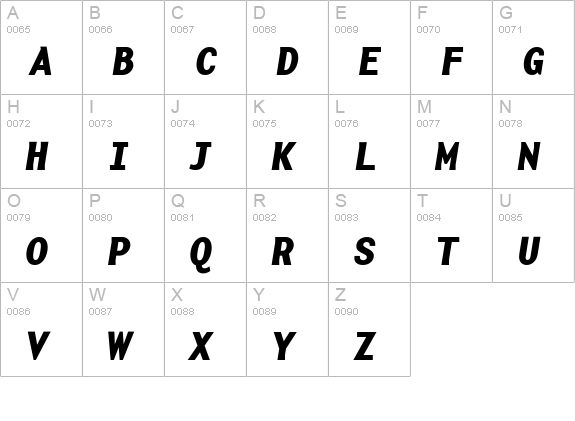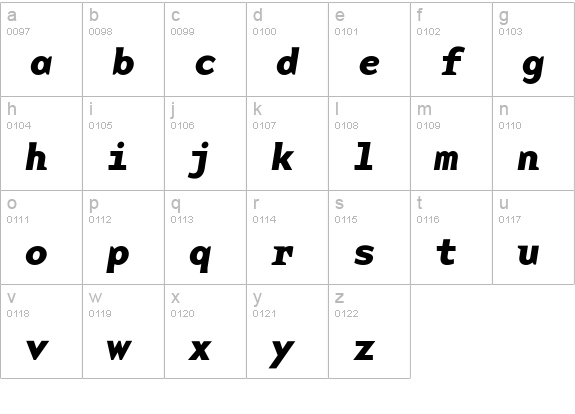
BaseMonoWide-Bold Italic is a strong, high-contrast, italic variant in the BaseMonoWide typeface family \xE2\x80\x94 well suited to headlines, attention-grabbing titles, and strong calls-to-action.
BaseMonoWide-Bold Italic is a striking and modern monospaced font that combines boldness with a touch of elegance. Its sleek design and strong presence make it perfect for conveying a sense of power and sophistication in any project. The bold italic style adds a dynamic and eye-catching element to your text, making it stand out from the crowd. This versatile typeface is ideal for a wide range of applications, from editorial design to branding and packaging. Its mono-width characters ensure consistency and readability, making it a reliable choice for both print and digital projects. Whether you're designing a poster, creating a logo, or coding a website, BaseMonoWide-Bold Italic will bring a bold and distinctive flair to your work. Best of all, BaseMonoWide-Bold Italic is available for free download at FontsMarket.com. This means you can easily access this high-quality font and use it in your projects without any cost. Don't miss out on this fantastic opportunity to elevate your design work with BaseMonoWide-Bold Italic. Download it today and start creating with style and confidence.